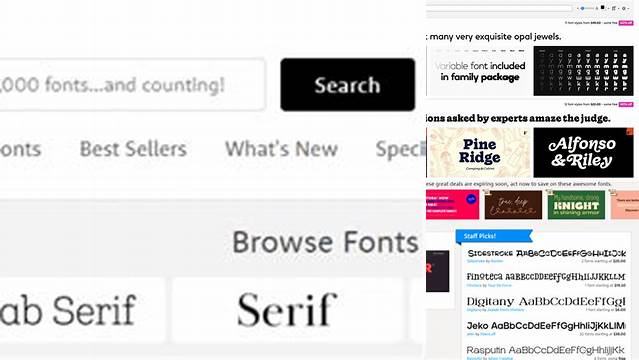
MyFonts Free Font: Find The Perfect Font For Your Project
Finding the perfect font for your project can be a game-changer. A well-chosen font can elevate your design, making it look professional and polished. But let's face it, high-quality fonts can be expensive. That's where the beauty of free fonts comes in, and MyFonts is a great place to start your search. In this guide, we'll dive deep into the world of free fonts available on MyFonts, how to find them, and tips for using them effectively. So, if you are looking for MyFonts free font, this guide is for you.
What are Free Fonts and Why Use Them?
Let's kick things off by understanding what exactly free fonts are. In the font world, "free" typically means that the font is available for personal and sometimes commercial use without any upfront cost. This doesn't necessarily mean the font is low-quality; in fact, many talented designers and foundries offer amazing fonts for free as a way to promote their work or contribute to the design community. Think of it as a win-win situation! You get access to fantastic typography, and the designers get exposure for their skills.
Why should you even bother with free fonts? Well, guys, there are plenty of reasons! First and foremost, they're budget-friendly. If you're working on a project with limited funds or just starting out as a designer, free fonts can be a lifesaver. They allow you to experiment with different styles and create stunning designs without breaking the bank. But the benefits don't stop there. Free fonts can also be a great way to discover new and exciting typefaces that you might not have considered otherwise. The sheer variety available can inspire your creativity and push you to explore new design directions. Imagine stumbling upon that perfect quirky handwritten font or a clean, modern sans-serif that perfectly embodies your brand. That's the magic of free fonts!
When you are working on a new project, fonts plays a big part in making the final result look professional and represent your brand well. Investing in premium fonts is sometimes necessary, but it can be a lot. This is where free fonts come in to help, giving you the chance to make cool designs without having to spend a lot of money. And with the wide variety of fonts available for free, you can always find something that fits just right.
Navigating MyFonts for Free Font
MyFonts is a huge online marketplace for fonts, boasting an impressive collection of both premium and free options. But with so many fonts to choose from, how do you actually find the freebies? Don't worry, it's easier than you might think! The trick is to use MyFonts's filtering and search tools effectively. Let's break down the process step-by-step.
First, head over to the MyFonts website. Once you're there, look for the "Fonts" section in the main navigation menu. Hover over it, and you should see a dropdown menu with various options. Look for a link specifically labeled "Free Fonts" or something similar. Clicking this will take you to a dedicated page showcasing all the free fonts currently available on MyFonts. This is your treasure trove, guys!
Now, here's where the fun begins. You can browse the free fonts by scrolling through the page, but if you're looking for something specific, you'll want to use the filtering options. On the left-hand side of the page, you'll find a sidebar with various filters. These filters allow you to narrow down your search based on criteria like font family, style (e.g., serif, sans-serif, script), weight (e.g., bold, light), and more. For example, if you're looking for a bold sans-serif font for a headline, you can select those options in the filters to see only fonts that match your criteria. This will save you a ton of time and help you find the perfect MyFonts free font.
Another handy tool on MyFonts is the search bar. If you have a specific font name or style in mind, you can simply type it into the search bar to see if there are any free options available that match your query. This is a great way to quickly check if MyFonts offers a free version of a font you've seen elsewhere or if they have fonts that are similar in style. So, when you are looking for a specific MyFonts free font, filtering and search are your best friends.
Key Considerations When Choosing a Free Font on MyFonts
Okay, you've found the free fonts section on MyFonts, and you're scrolling through the options, feeling like a kid in a candy store. But before you download every single font that catches your eye, let's talk about some key considerations to keep in mind when choosing a free font. Not all free fonts are created equal, and making the right choice can significantly impact the success of your project. So, let's dive into the important stuff.
One of the most crucial things to consider is the license. Yes, even free fonts come with licenses, and it's essential to understand what the license allows you to do. Some free fonts are licensed for personal use only, meaning you can use them for personal projects like creating invitations for a birthday party or designing a poster for your bedroom. However, if you plan to use the font for commercial purposes, such as on your business website, in marketing materials, or in a product you're selling, you'll need to make sure the license allows for commercial use. MyFonts typically provides clear information about the license associated with each font, so be sure to read the fine print before downloading. If you're unsure about the terms, it's always best to err on the side of caution and contact the font designer or foundry for clarification.
Another important factor to consider is the legibility of the font. A beautiful font is useless if it's difficult to read. Think about the context in which you'll be using the font. If it's for body text on a website or in a printed document, you'll want to choose a font that's clear and easy on the eyes. Ornate or highly stylized fonts might look great for headlines or logos, but they can be a nightmare for longer blocks of text. When evaluating legibility, consider factors like the font's x-height (the height of lowercase letters), the spacing between letters, and the overall clarity of the letterforms. Always test the font in the size and context you plan to use it in to ensure it's readable.
Finally, don't forget to think about the style and tone of the font. Does it match the overall aesthetic of your project? Does it convey the right message? A playful, handwritten font might be perfect for a children's book, but it would likely feel out of place on a corporate website. Consider the emotions and associations that the font evokes. Is it modern and minimalist? Classic and elegant? Bold and energetic? Choosing a font that aligns with your project's goals and target audience is crucial for creating a cohesive and effective design. When choosing a MyFonts free font, these considerations will help you make the right choice.
Tips for Using Free Fonts Effectively
So, you've found some awesome free fonts on MyFonts and you're itching to use them in your next project. That's fantastic! But before you go wild with typography, let's talk about some tips for using free fonts effectively. Just because a font is free doesn't mean you should throw all design principles out the window. Using free fonts strategically can elevate your designs, but using them carelessly can have the opposite effect. Let's get into it, guys.
First up, less is more. This is a golden rule of typography, whether you're using free fonts or premium fonts. It's tempting to use a bunch of different fonts in a single design, especially when you have so many exciting free options at your fingertips. But resist that urge! Too many fonts can create a cluttered, chaotic, and unprofessional look. A good rule of thumb is to stick to a maximum of two or three fonts in a single design. Choose one font for headlines, one for body text, and maybe a third for accents or captions. This will create a more harmonious and visually appealing design. Think of your fonts as a team; they should complement each other, not compete for attention.
Next, pay attention to hierarchy. Hierarchy is the visual arrangement of elements in your design to guide the viewer's eye and communicate the relative importance of different pieces of information. Fonts play a crucial role in establishing hierarchy. Use different font sizes, weights, and styles to create contrast and emphasize key elements. For example, your headline should be the largest and most prominent text on the page, while body text should be smaller and more subdued. Using a bold font for headlines and a lighter font for body text can also create a clear visual distinction. By effectively using fonts to establish hierarchy, you can help your audience quickly understand the message you're trying to convey. When using a MyFonts free font, think about how it can contribute to the overall hierarchy of your design.
Another tip: pair fonts wisely. Font pairing is the art of combining different fonts in a way that is visually pleasing and effective. Some fonts naturally complement each other, while others clash horribly. A classic pairing strategy is to combine a serif font with a sans-serif font. For example, you might use a serif font like Times New Roman for body text and a sans-serif font like Helvetica for headlines. This creates a nice contrast while still maintaining readability. You can also experiment with pairing different styles within the same font family. For example, you might use a bold weight for headlines and a regular weight for body text. There are tons of resources online that offer font pairing suggestions, so don't be afraid to do some research and find combinations that work well for your project. The right pairing of a MyFonts free font can really make your design stand out.
Finally, don't be afraid to experiment. Free fonts offer a fantastic opportunity to try out new styles and push your creative boundaries. Don't just stick to the same old fonts you always use. Browse the MyFonts free fonts section, download some options that intrigue you, and play around with them in your designs. You might be surprised at what you discover. Just remember to keep the other tips in mind – less is more, pay attention to hierarchy, and pair fonts wisely. With a little experimentation and attention to detail, you can use free fonts to create stunning designs that look anything but cheap.
Maximizing MyFonts Free Font for Your Projects
Free fonts on MyFonts can be a game-changer for your projects, whether you're a seasoned designer or just starting out. By understanding how to find them, choose them wisely, and use them effectively, you can create designs that are both visually appealing and budget-friendly. Remember to always check the license, prioritize legibility, and consider the style and tone of the font. Don't be afraid to experiment and try new things, but always keep design principles in mind. With a little effort and creativity, you can unlock the full potential of MyFonts free font and take your designs to the next level. So go ahead, guys, explore the world of free fonts and create something amazing!